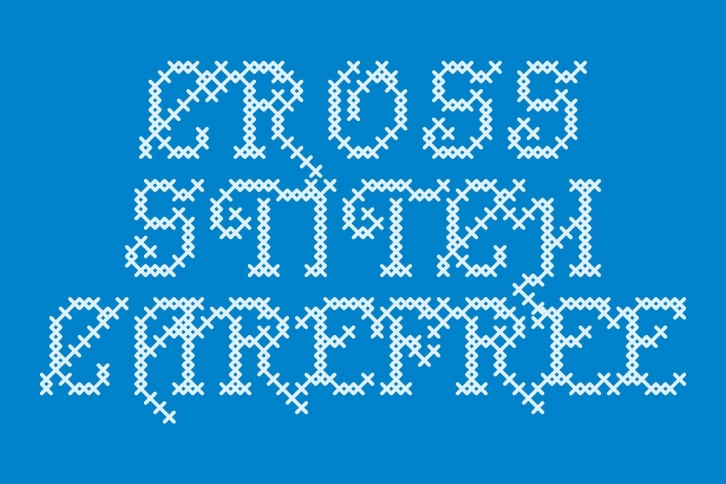
The Cross Stitch Carefree font is for creating designs with letters that appear to be cross stitched for posters, art prints, signage or anything that cross stitched lettering would enhance. It is based on upper case characters 10 stitches tall and contains the characters A-Z and period. Several characters extend above the capital line or below the base line.